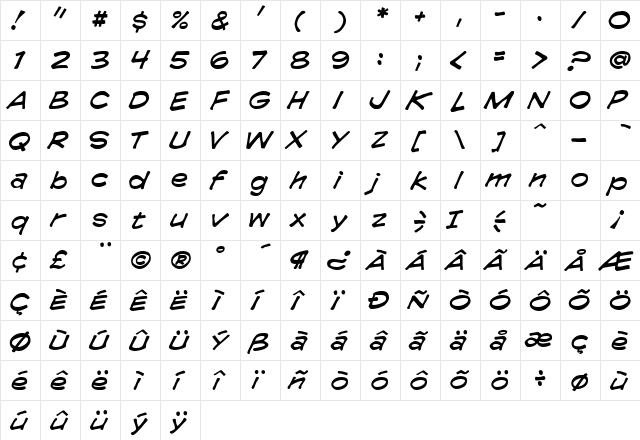
CC Comicrazy Italic
Design Context for CC Comicrazy Typeface
CC Comicrazy has an approachable, lighthearted character — its loose, expressive forms are well-suited to children's content, casual branding, and fun-first design. The dynamic lean of this cut emphasises speed and emphasis in any layout.
Great for children's books, toy packaging, family event branding, and casual consumer-facing design.
Font Pairing: Pairs well with a rounded or humanist sans for body copy, maintaining the friendly tone without relying on CC Comicrazy to carry extended reading.
Pro Tip: Avoid using CC Comicrazy for long passages of text — it works best for headlines, labels, and short calls to action.